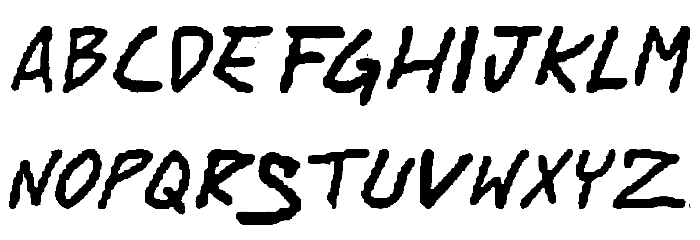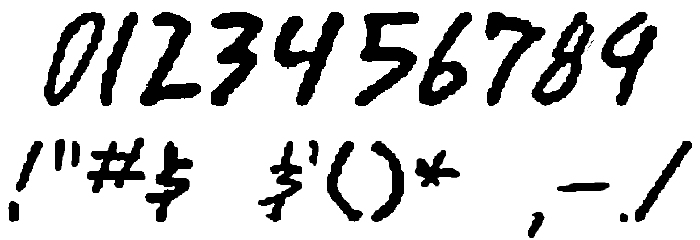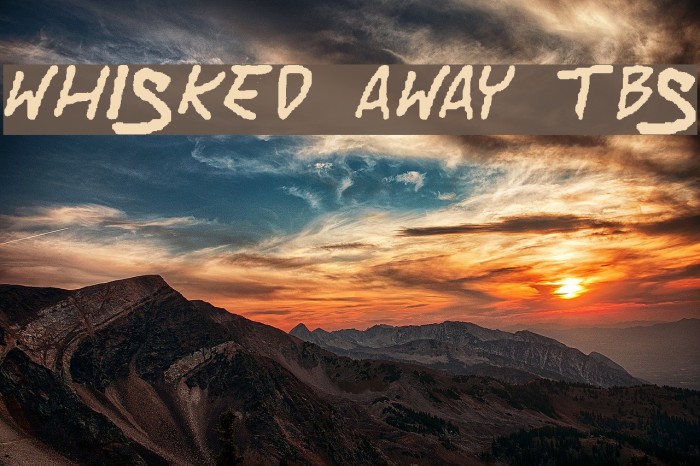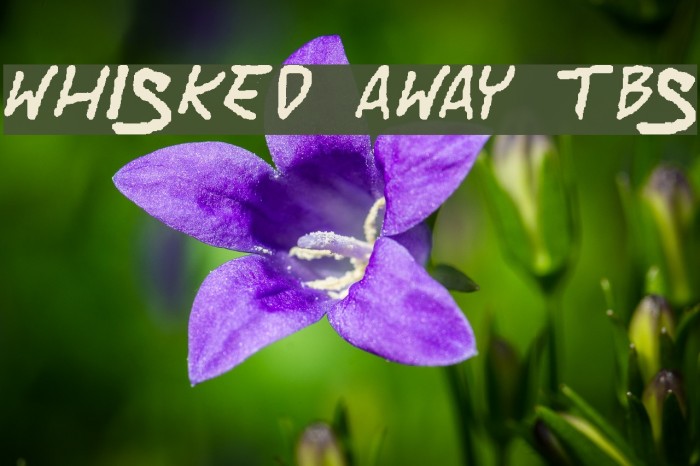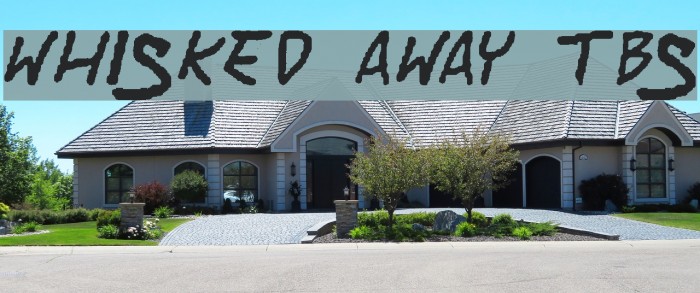
Whisked Away TBS Font
This font features a dynamic and energetic handwritten style, characterized by its fluid and slightly irregular strokes. The letters have a casual, personal touch, reminiscent of quick, expressive handwriting. The uppercase and lowercase letters maintain a consistent style, with some variation in stroke thickness that adds to its lively appearance. The numbers and special characters follow the same handwritten aesthetic, making it suitable for projects that require a personal or informal tone.
A lively, handwritten font with fluid, expressive strokes.
- Proposed Projects: Ideal for personal invitations, greeting cards, casual branding, and creative projects that require a personal touch.
- Overall Style: Casual, Expressive
- Use Case: Headlines, Informal text, Creative projects